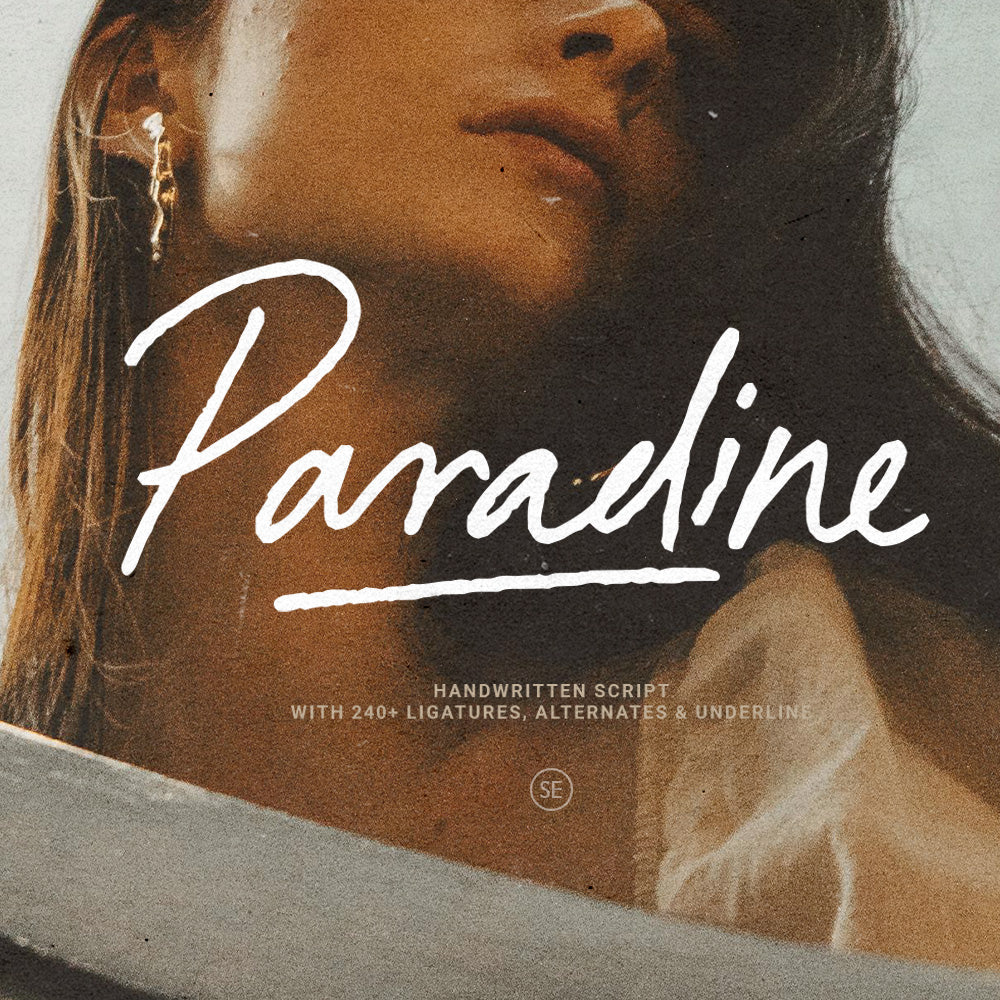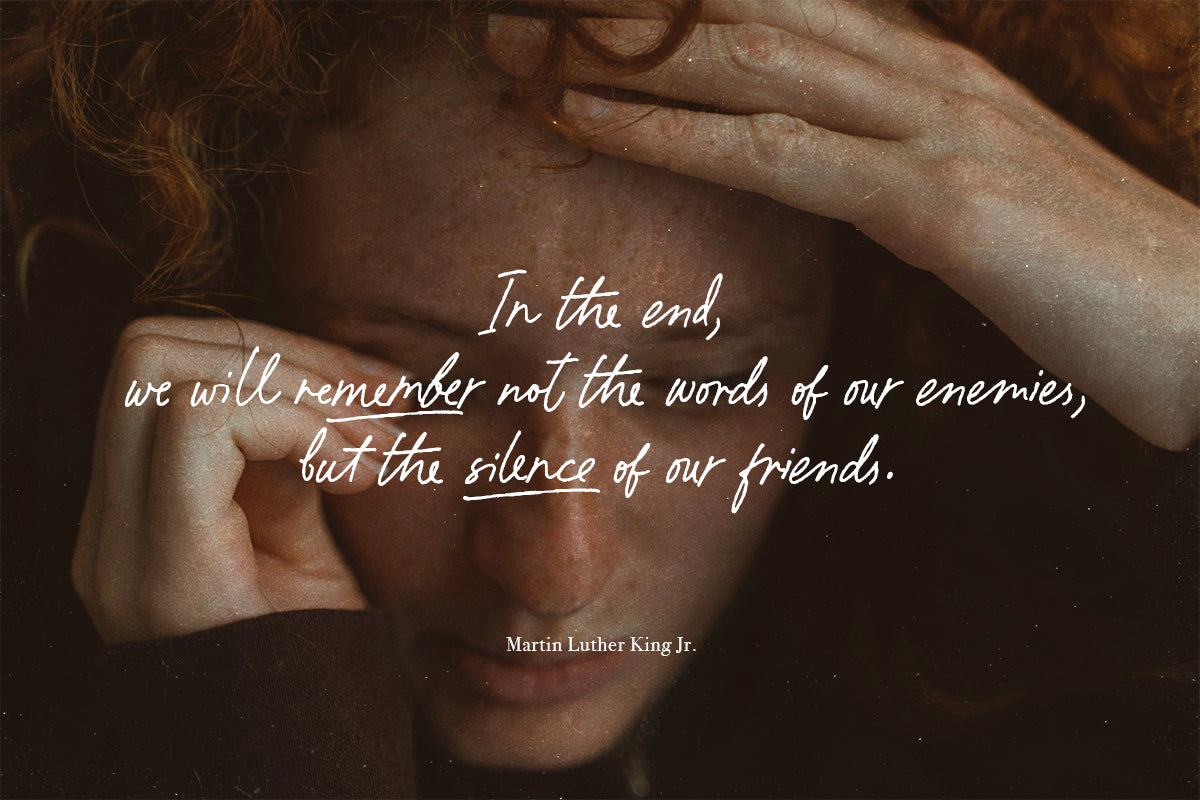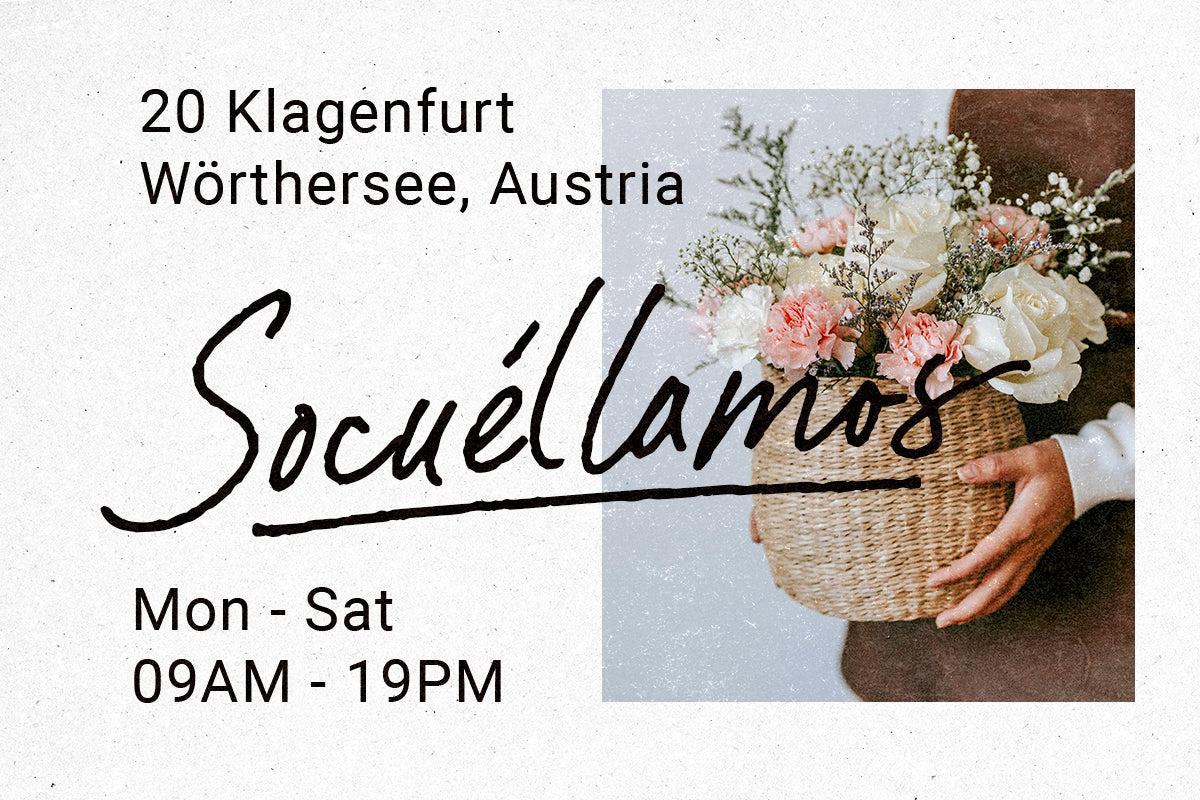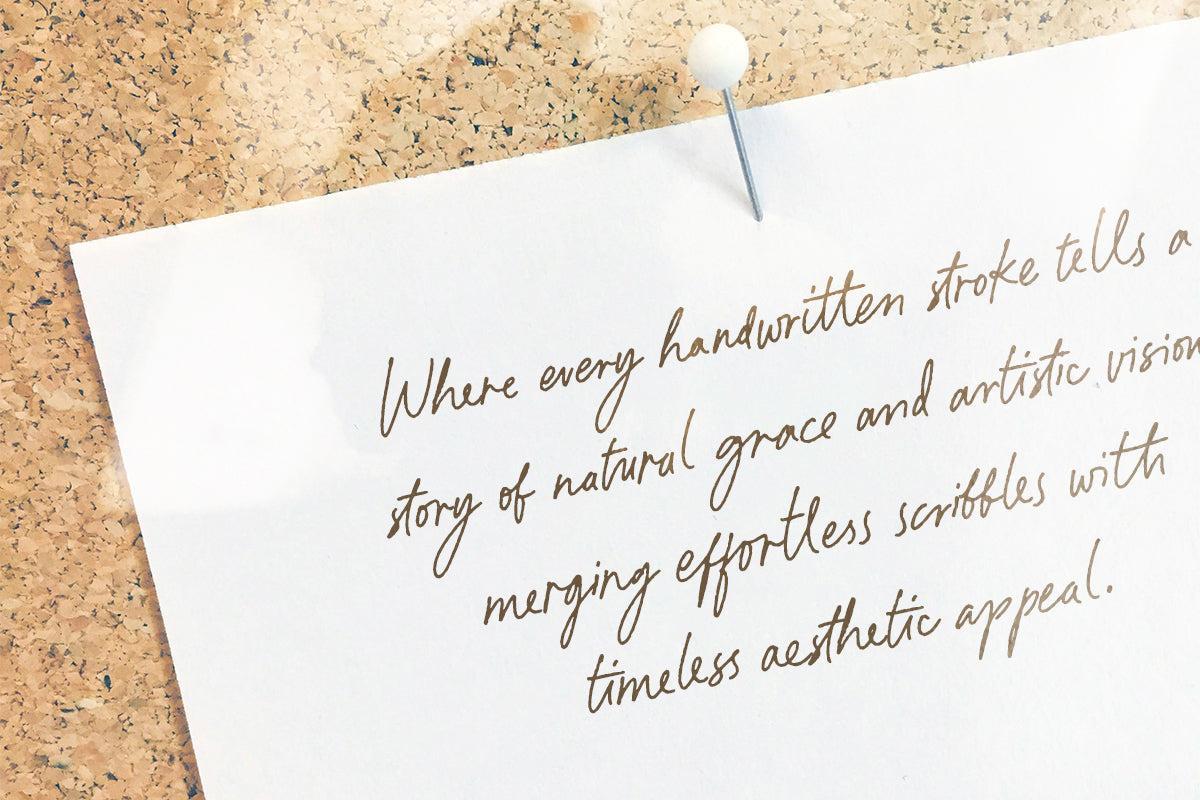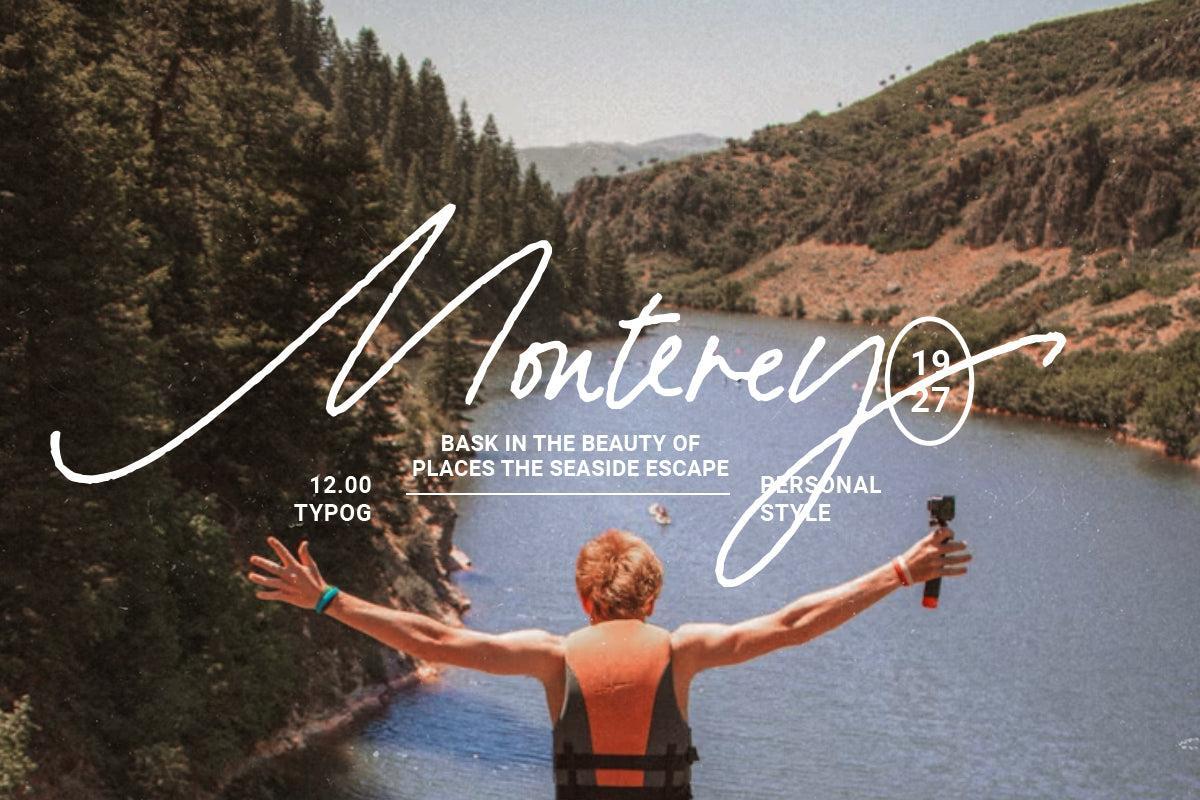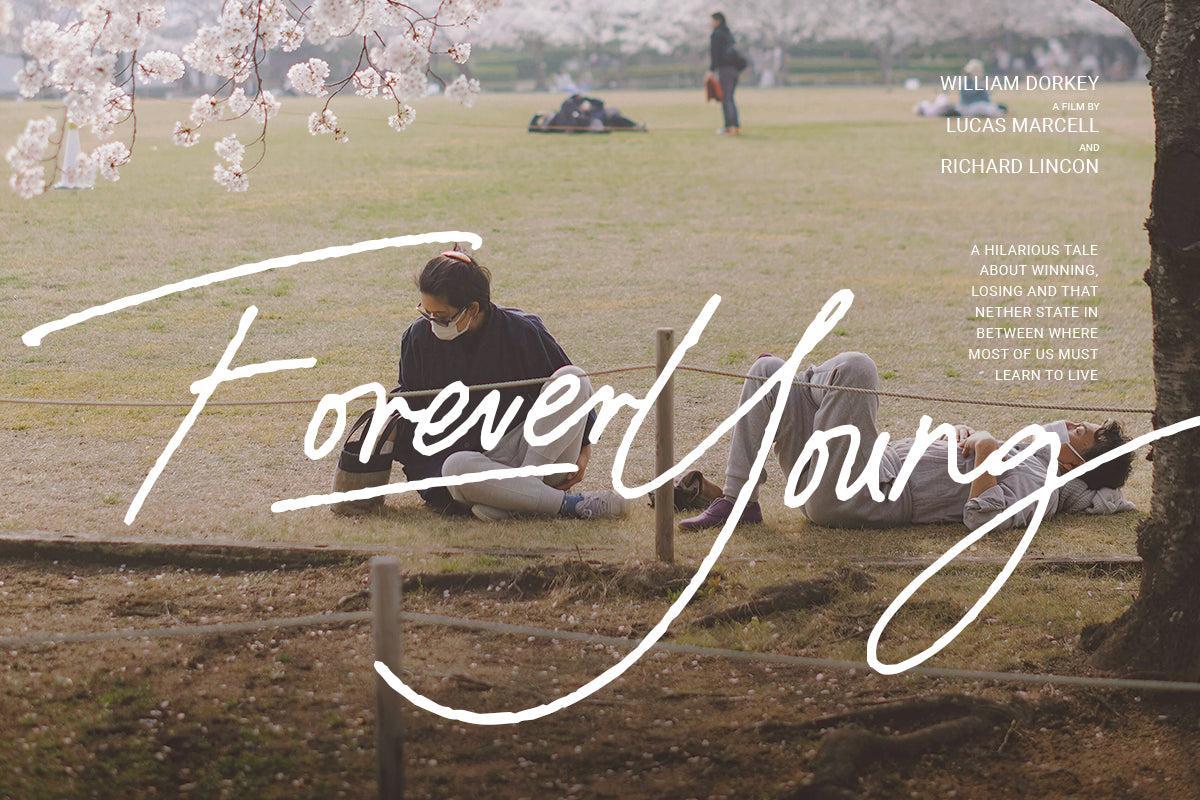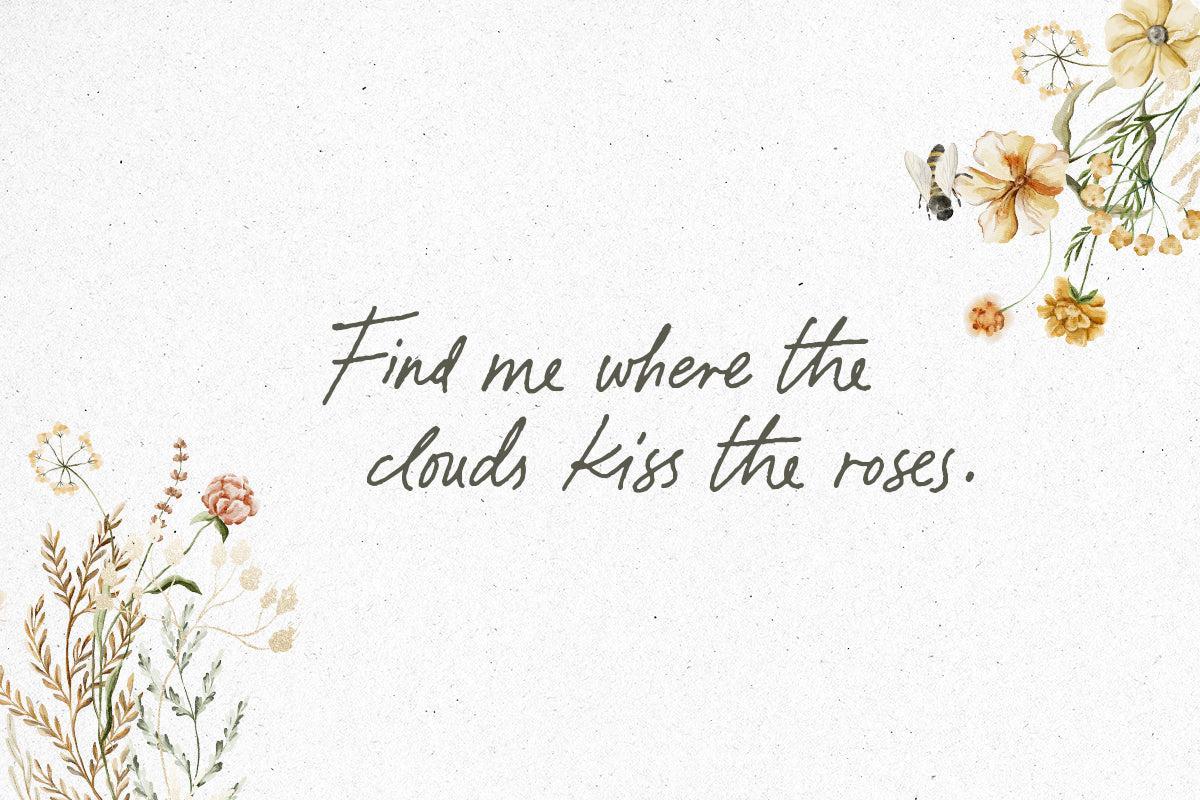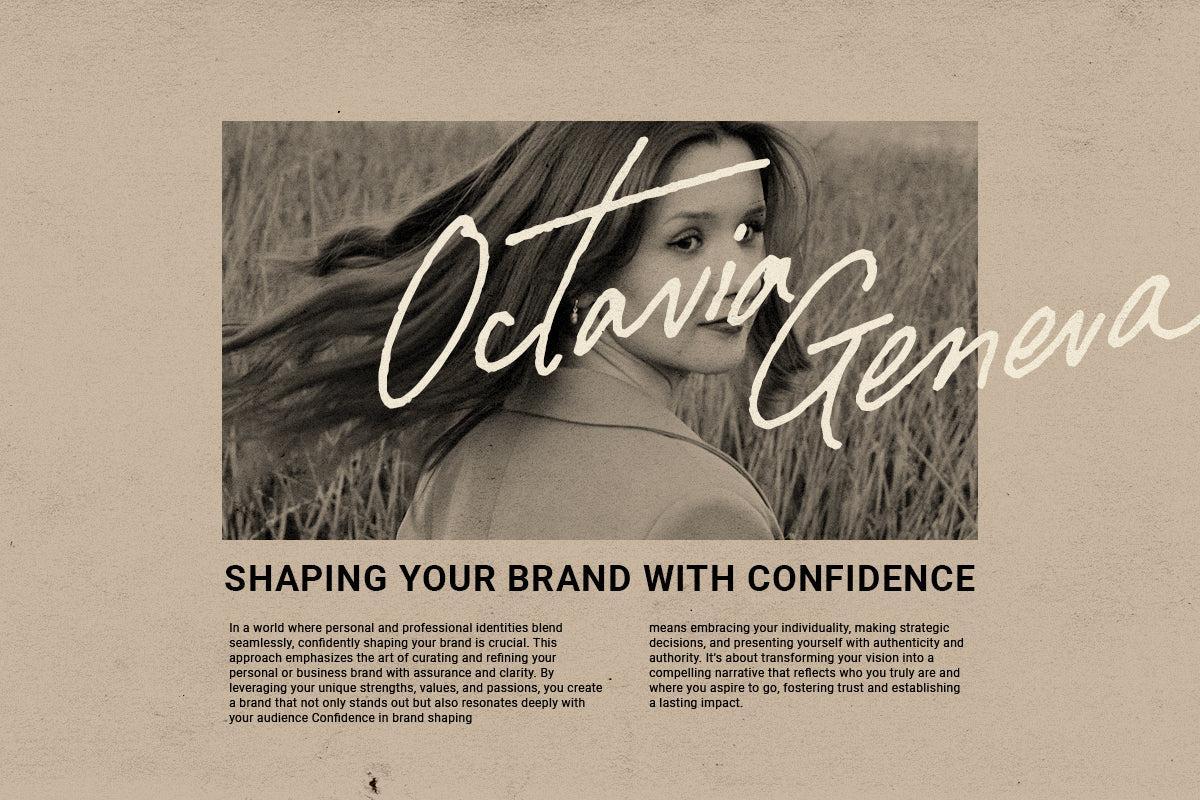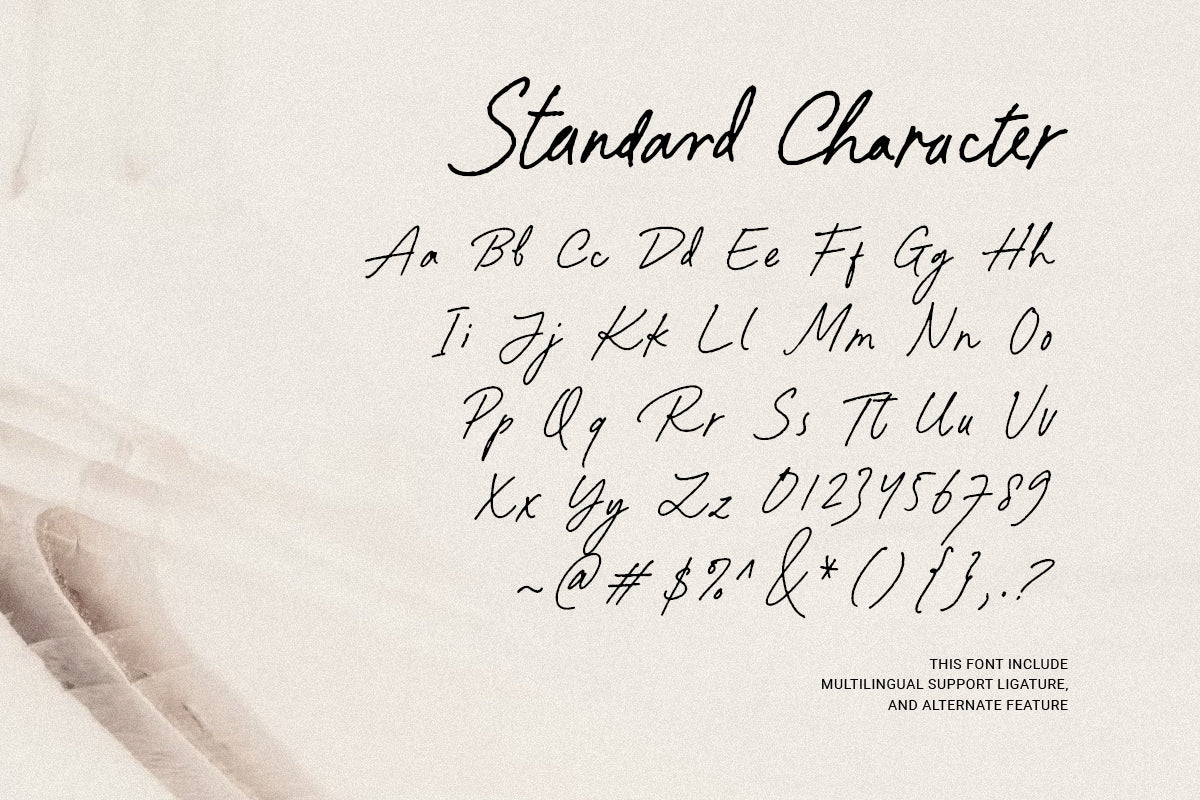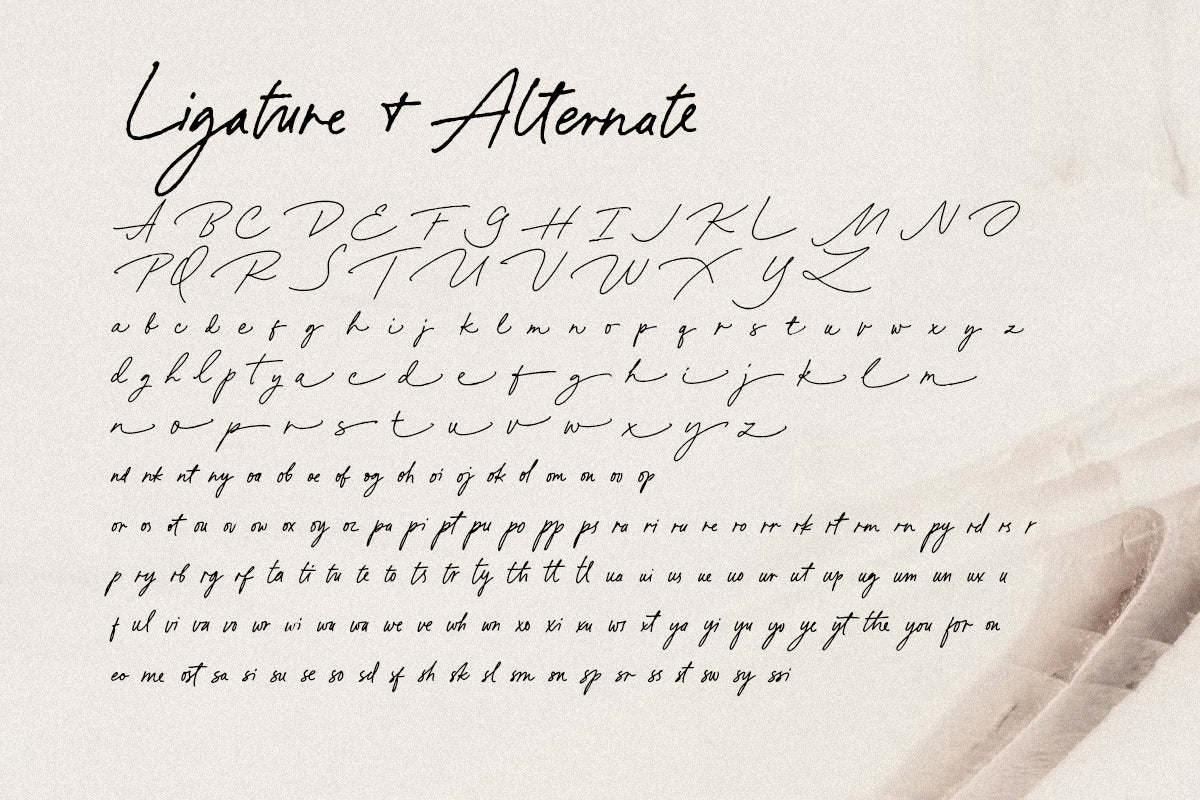
Paradine - Ligature Handwritten Font
Paradine is a handwritten script with bunch of ligatures that will make your project looks more natural and made by hand. You can use this font for any purposes such as label, logo, handwritten quotes, wedding invitations and more. Paradine also have stylish alternates version that have different vibes that you can use for headline. This font also support multi language!
Paradine is a handwritten script font featuring a variety of ligatures for a natural, handcrafted appearance. It includes stylish alternate versions and supports multiple languages, making it versatile for various design needs.